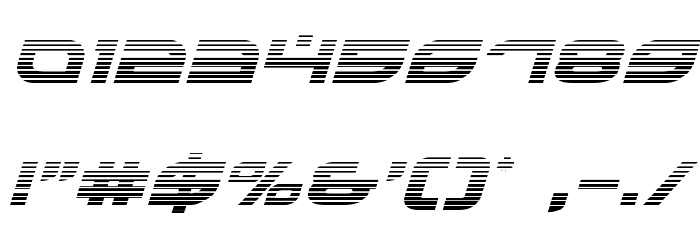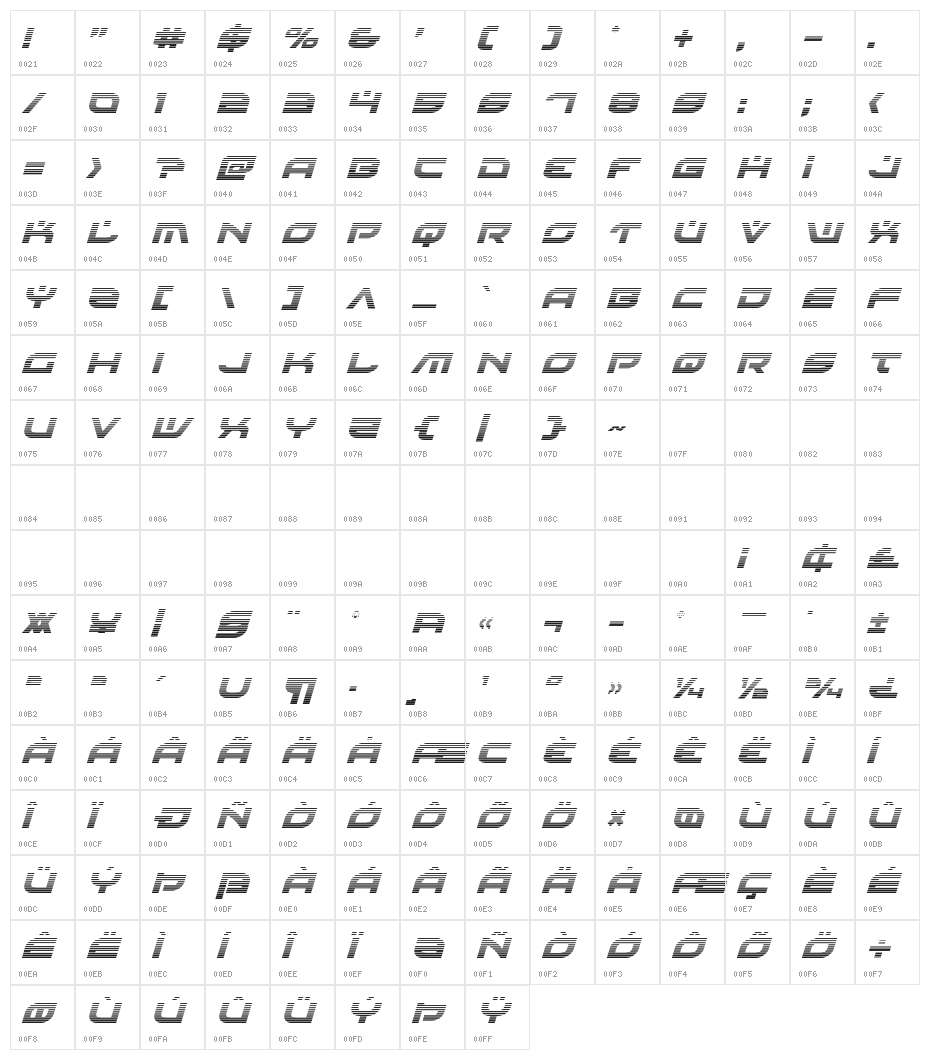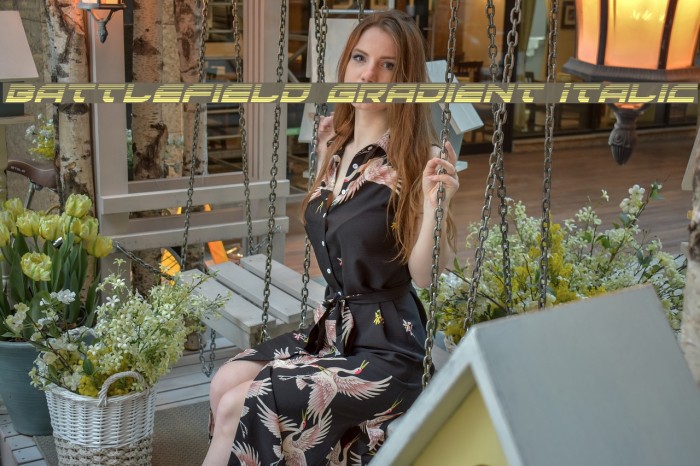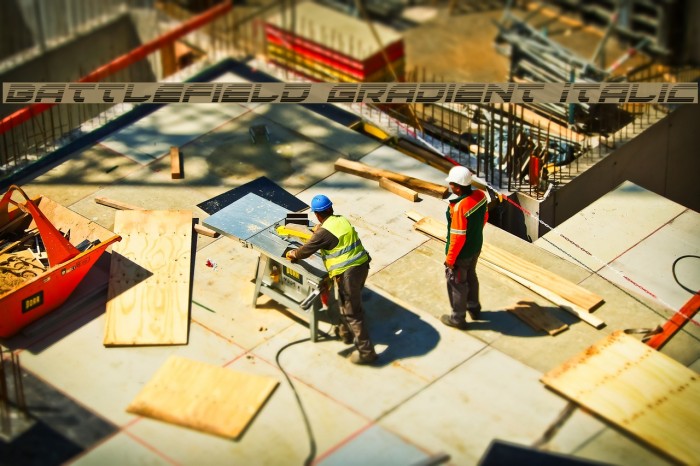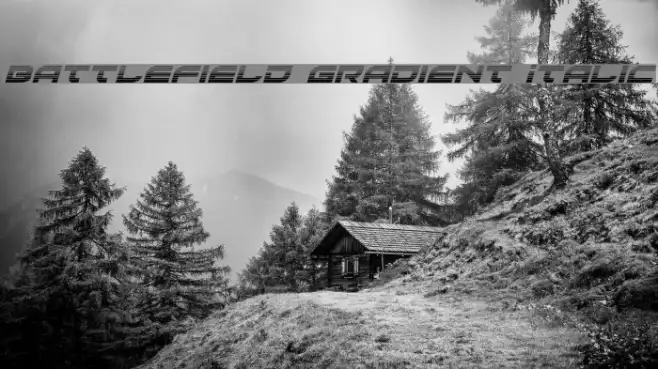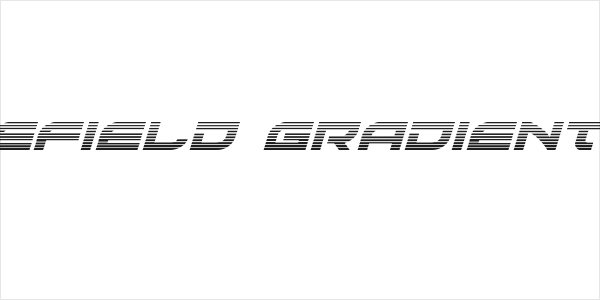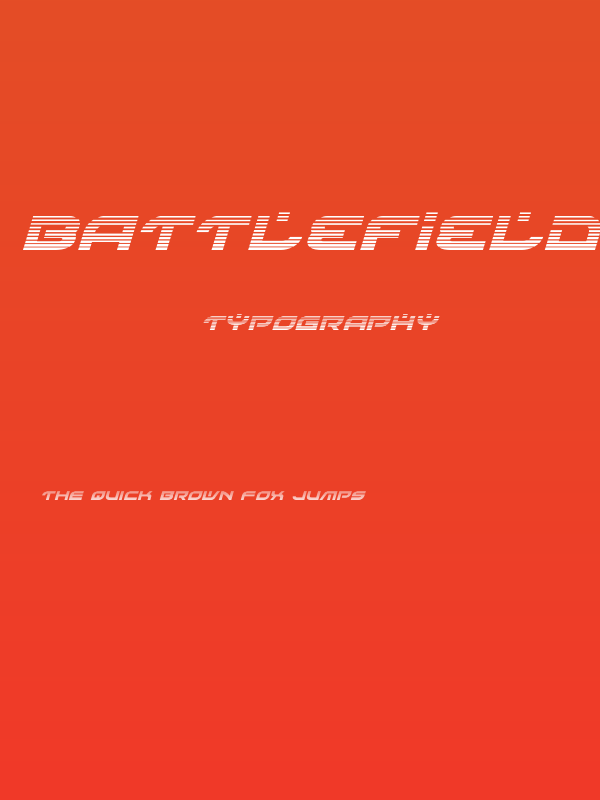
Battlefield Gradient Italic Font
Battlefield Gradient Italic Description
This font features a bold, italicized style with a distinct gradient effect created by horizontal lines running through each character. The uppercase and lowercase letters maintain a consistent slant, enhancing the italic appearance. The numbers and special characters follow the same design, ensuring uniformity across all glyphs. The font's modern and futuristic look is emphasized by its sharp angles and clean lines, making it suitable for dynamic and impactful designs. The spacing between characters is relatively tight, contributing to its compact and cohesive appearance.
| Proposed Projects | Ideal for video game titles, tech branding, futuristic posters, and dynamic logos. |